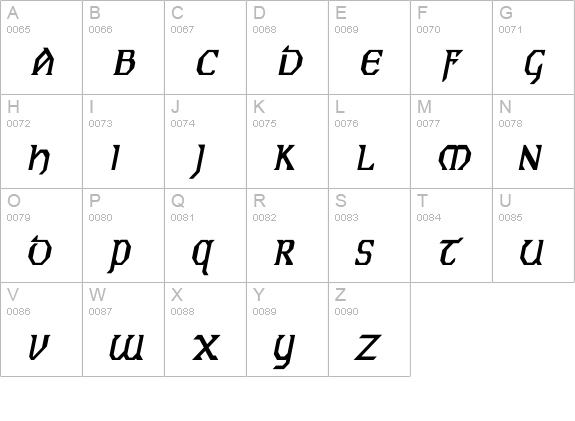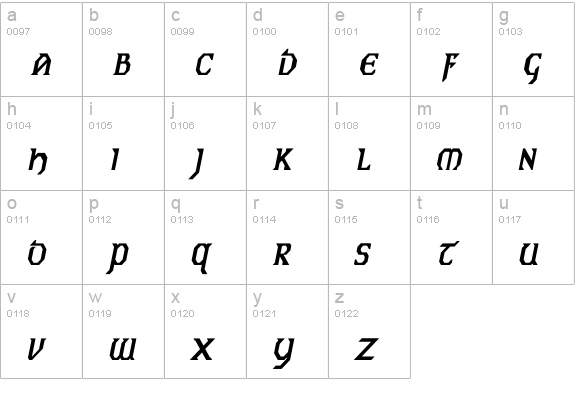
Eire Cn Bold Italic is a strong, high-contrast, italic variant in the Eire typeface family \xE2\x80\x94 well suited to headlines, attention-grabbing titles, and strong calls-to-action.
Eire Cn Bold Italic font is a modern and stylish typeface that exudes elegance and sophistication. Its bold and italic design gives it a unique and eye-catching appearance, making it perfect for a wide range of design projects. Whether you're working on a logo, branding materials, or a website, this font will add a touch of class to your designs. The Eire Cn Bold Italic font is not only visually appealing but also highly functional, with excellent readability in both small and large sizes. Its clean lines and sharp edges make it ideal for both print and digital applications. Best of all, this font is available for free download at FontsMarket.com. So, whether you're a professional designer or just looking to add a stylish touch to your personal projects, you can easily access and use Eire Cn Bold Italic font without any cost. Don't miss out on this opportunity to enhance your designs with this beautiful and versatile typeface.